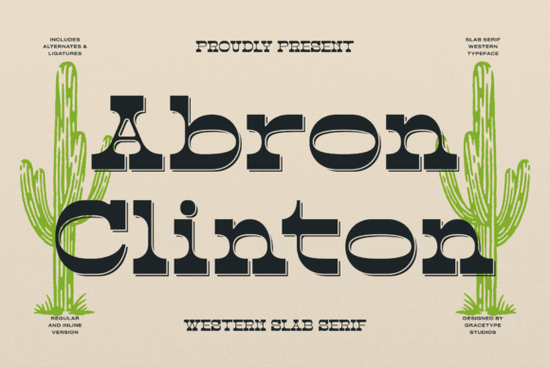
Designers, crafters, and small business owners looking for a unique typeface that combines ruggedness with style might find the Abron Clinton Font to be a perfect fit. This bold display font brings a frontier legacy to any project, making it ideal for branding, packaging, and visual storytelling. Whether you're working on a custom motorcycle shirt or a craft distillery label, Abron Clinton offers a distinctive look that stands out.
The Abron Clinton Font features extra-wide letterforms with massive bracketed block serifs. These design elements give the typeface a strong, three-dimensional feel. The high-contrast horizontal weight distribution adds visual interest, while the inline underline shadow enhances its retro aesthetic. Together, these details create a striking presence that works well in both print and digital formats.
One of the standout features of Abron Clinton is its connection to classic wild-west typography. The font’s design is inspired by the bold, hand-crafted styles seen in old saloon signs and western posters. However, it also adapts well to modern layouts, especially those that aim for a rugged or streetwear vibe. This blend of old and new makes it versatile for a variety of creative projects.
Who Can Benefit from Using Abron Clinton?
Independent craft distillers often use Abron Clinton for their labeling because it gives bottles a strong, memorable identity. Custom motorcycle apparel brands also appreciate its bold appearance, which aligns with the rugged image of their products. Boutique barbershops may use it for signage or promotional materials to convey a sense of tradition and strength.
Rugged outdoor gear packaging is another area where this font shines. Its strong visual impact helps products stand out on shelves or in online stores. For social media titles, Abron Clinton can make headlines more eye-catching, helping to draw attention and increase engagement.
How to Use Abron Clinton in Your Projects
When using Abron Clinton, consider the context of your design. It works best as a display font rather than for body text due to its bold and intricate details. Pair it with simpler fonts for balance, especially in multi-font designs. This approach ensures readability without sacrificing style.
For print projects, make sure to test the font at different sizes to see how it looks on paper. Digital applications like social media posts or website headers can take full advantage of its three-dimensional effects. Always check how the font renders across different devices and platforms to maintain consistency.
If you're exploring similar fonts, you might also want to look into other slab-serif options. Slab-serif fonts often have a strong, solid appearance that complements the look of Abron Clinton. They’re commonly used in advertising, logos, and other high-impact designs.
Before finalizing your design, consider testing the font in different scenarios. Try it on mockups, banners, or product labels to see how it performs. This step can help you determine if it meets your creative goals and brand identity.
For a quick reference, here's a checklist to help you get started with Abron Clinton:
- Test the font at different sizes and on various backgrounds.
- Pair it with complementary fonts for balanced designs.
- Use it as a display font for maximum impact.
- Explore similar fonts for additional design options.
By incorporating Abron Clinton into your workflow, you can add a unique and powerful visual element to your projects. Its bold character and retro-inspired design make it a valuable tool for anyone looking to create something memorable and impactful.